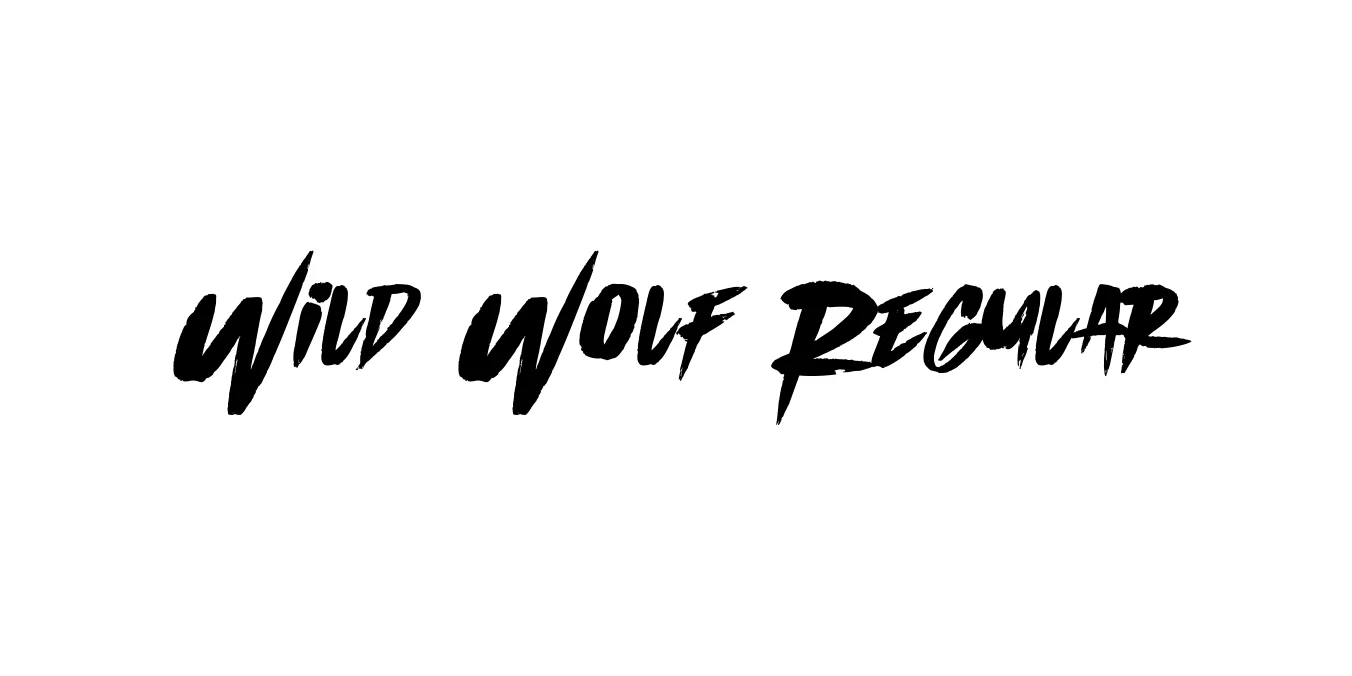
Wild Wolf Regular
Designed by Dikas Studio
Wild Wolf Regular is a high-energy brush typeface designed to capture the raw, unrefined essence of hand-painted lettering. Created by the talented team at Dikas Studio, this font stands out with its aggressive strokes and textured edges, providing a sense of motion and organic power that is perfect for contemporary display needs.
The font is meticulously crafted to maintain high legibility while offering a rugged, urban aesthetic. Its versatility makes it a staple for designers looking to add a touch of rebellion or adventurous spirit to their work, effectively bridging the gap between street art and professional graphic design.
Wild Wolf Regular Best Uses
Creating edgy logos for streetwear and lifestyle brands.
High-impact graphics for Instagram, YouTube, and TikTok content.
Designing bold prints for t-shirts, hoodies, and headwear.
Eye-catching event flyers and cinematic movie posters.